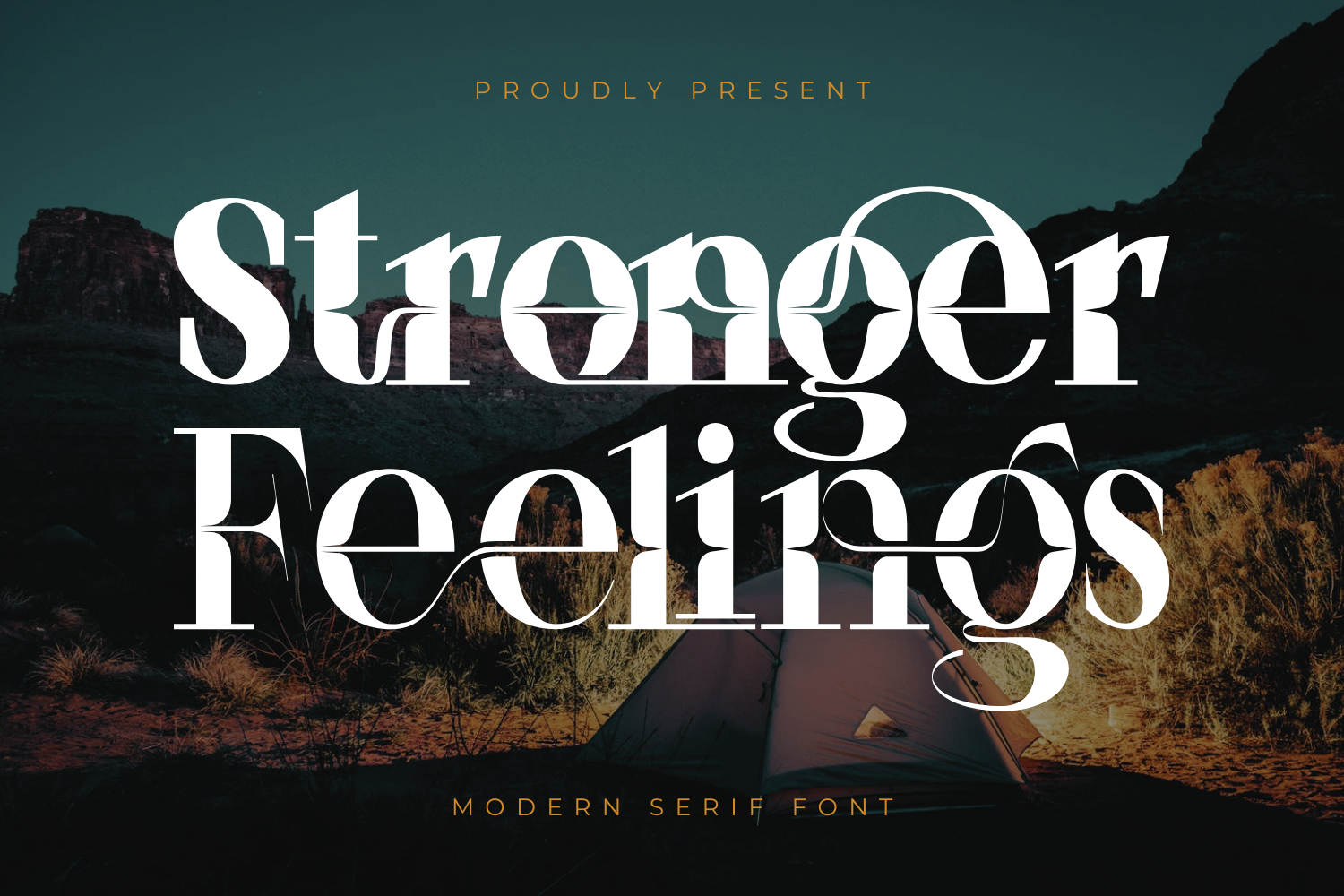
Stronger Feelings Font
Introducing Stronger Feelings Font, a sophisticated Modern Serif Display font designed to elevate your creative projects. With its refined yet contemporary aesthetic, Stronger Feelings strikes the perfect balance between elegance and boldness, making it ideal for branding, editorial designs, packaging, and more.
This versatile typeface features both uppercase and lowercase letters, along with an extensive collection of 100 special ligatures, numerals & punctuation, and accented characters to support multiple languages. Whether you're crafting a luxurious logo, an eye-catching headline, or a stylish magazine layout, Stronger Feelings delivers impeccable style and readability. Elevate your typography game with Stronger Feelings – where modernity meets timeless sophistication.
Stronger Feelings was built with OpenType features and includes 100 ligatures, alternate, numbers, punctuation, and it also supports other languages.
ac ad al an ar as at au av be ca ce ch co ct de di ea ec ed ee el em en ep er es et fe fo fr ge ha he hi ho ie ic il in io ir is it ju ke la le li ll lo ly ma me mi nc nd ne ng no nt ns oc of om on oo op or ot ou ow pa pr ra rd re ri ro rs rt se sh si so ss st ta te th ti to tr tt um un ur ve wi wo
- Special Ligatures